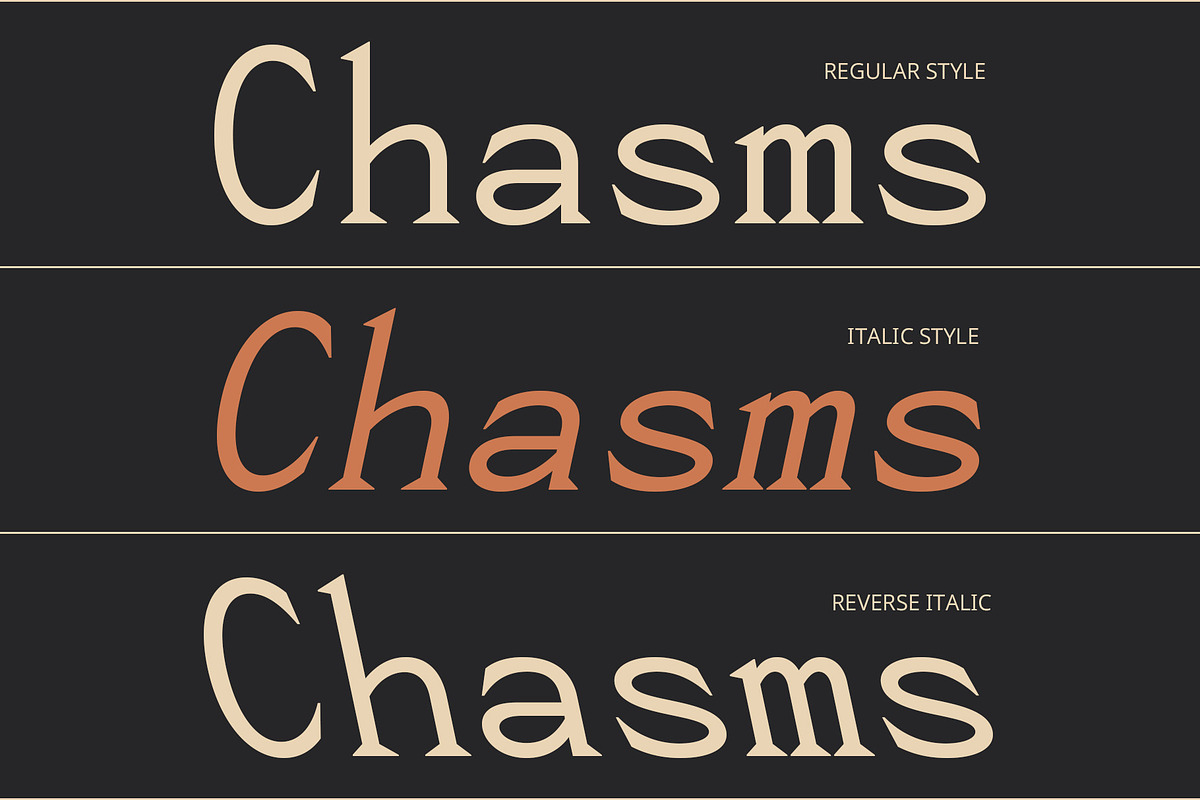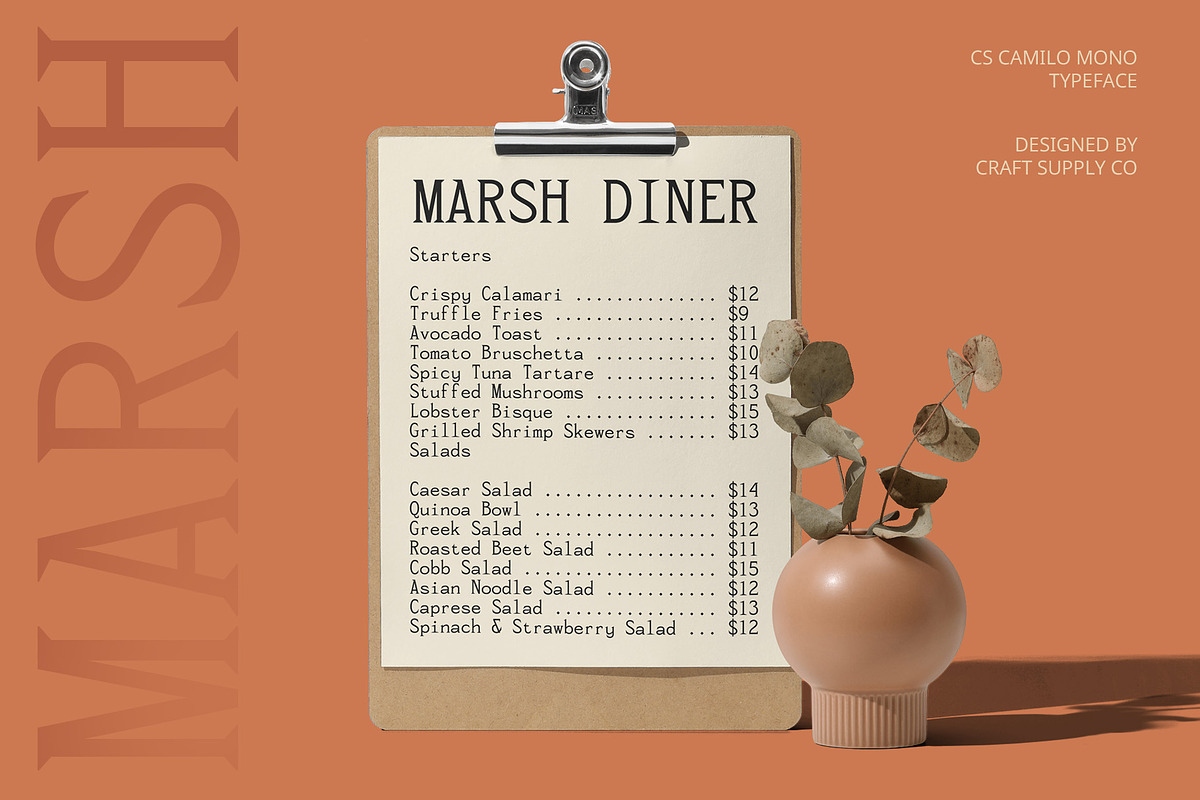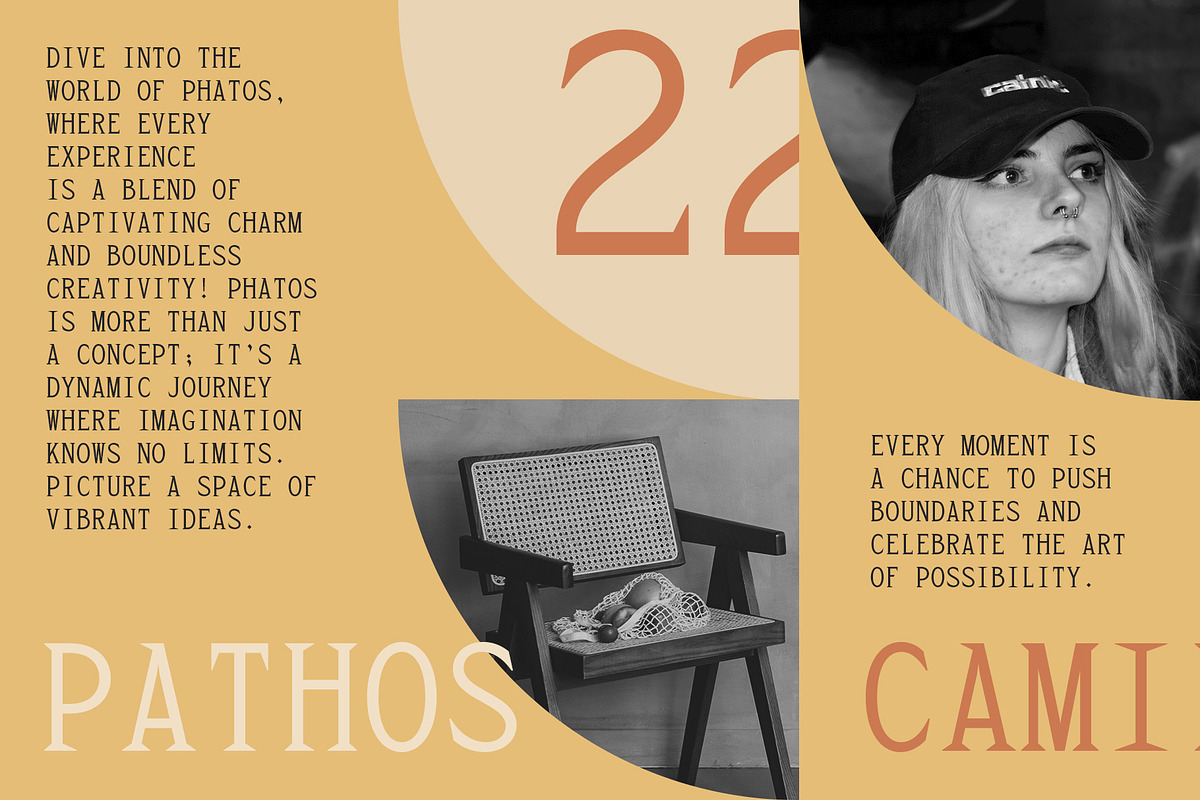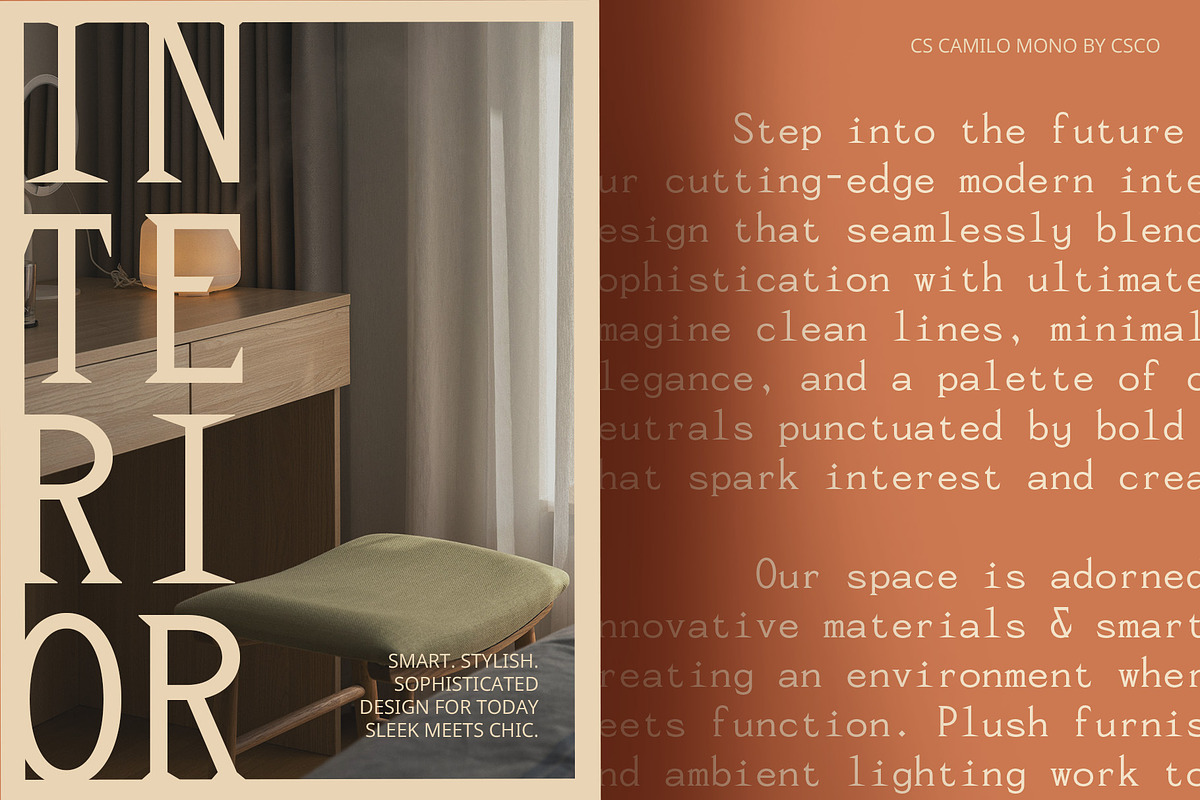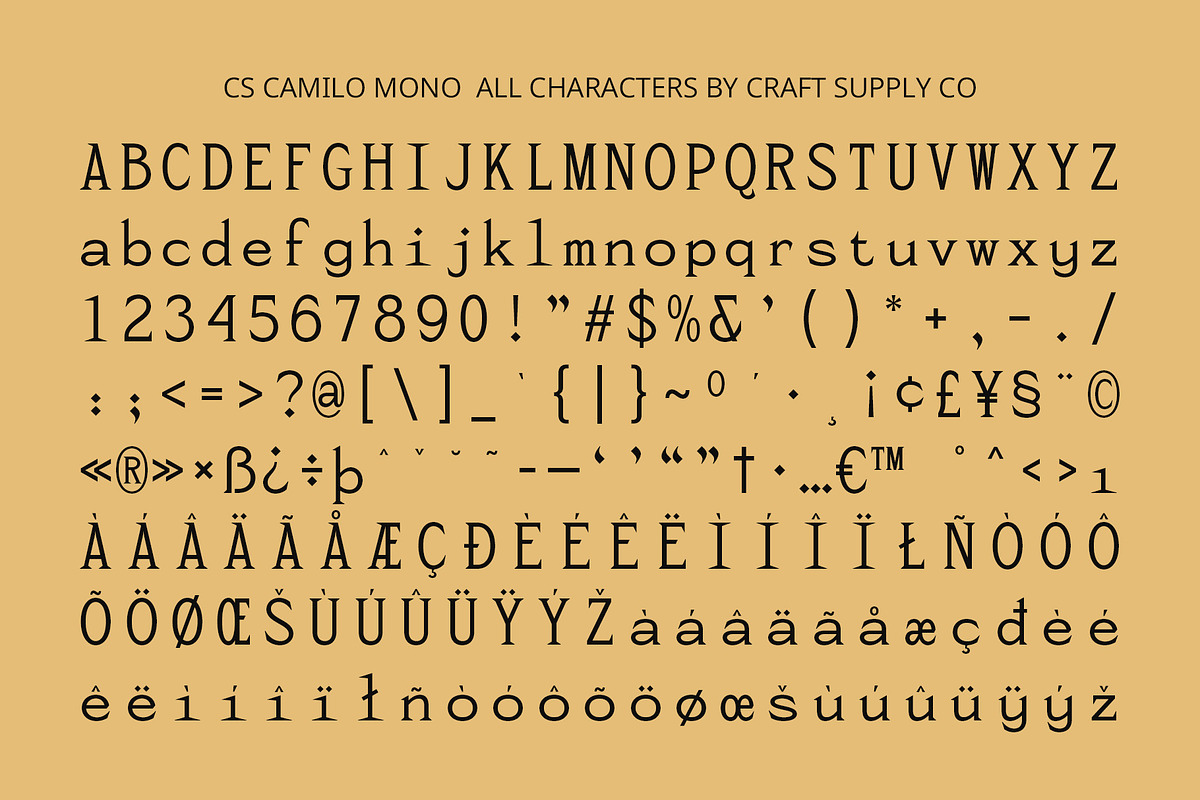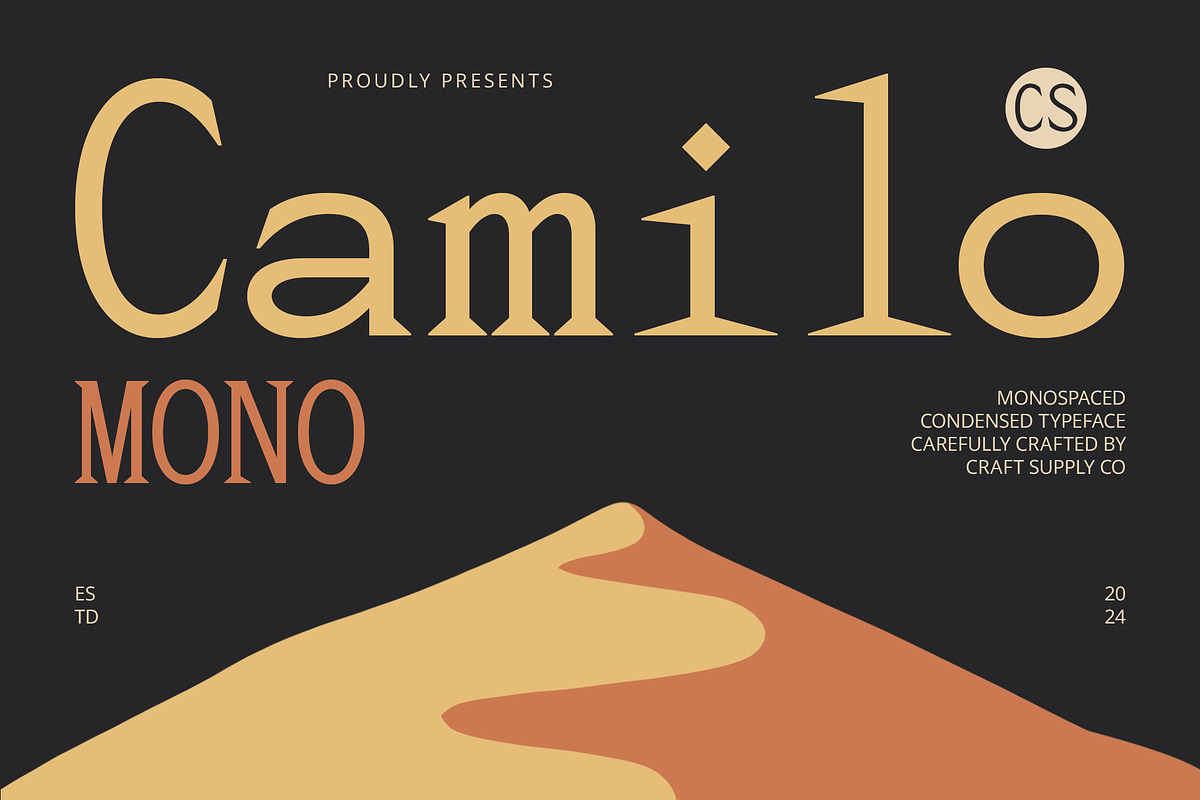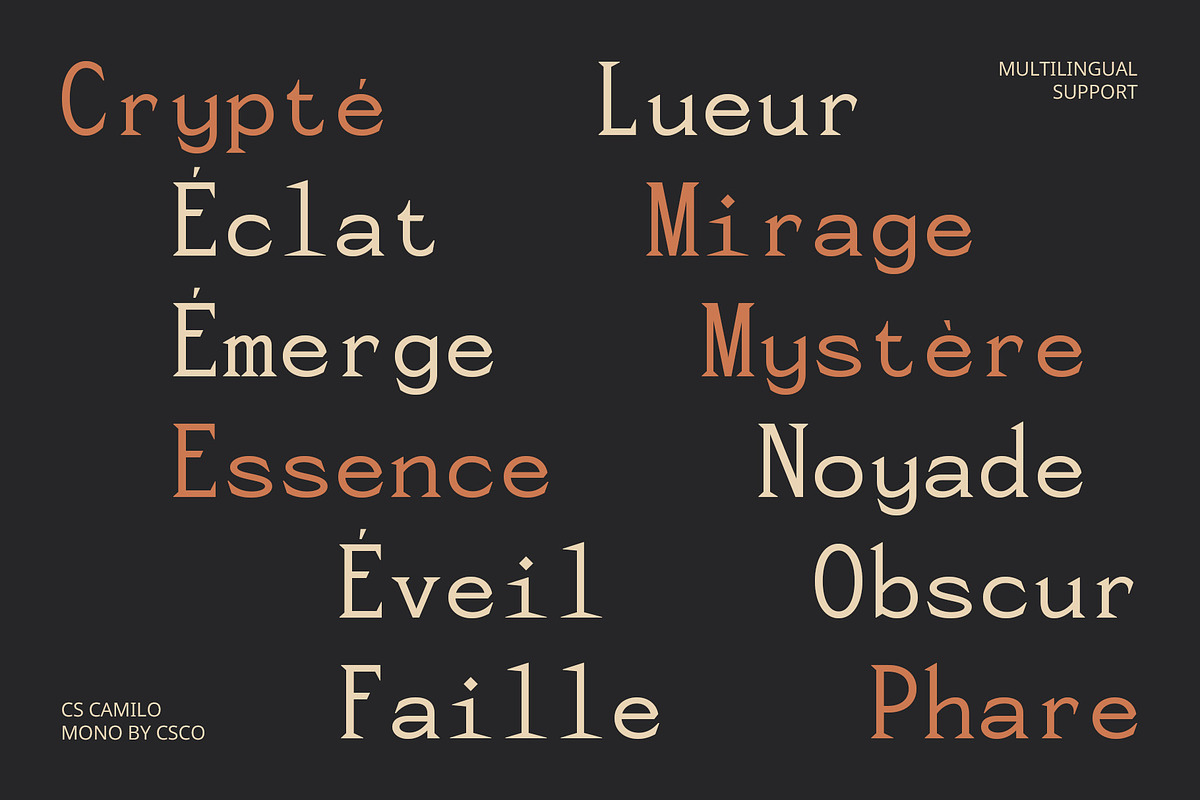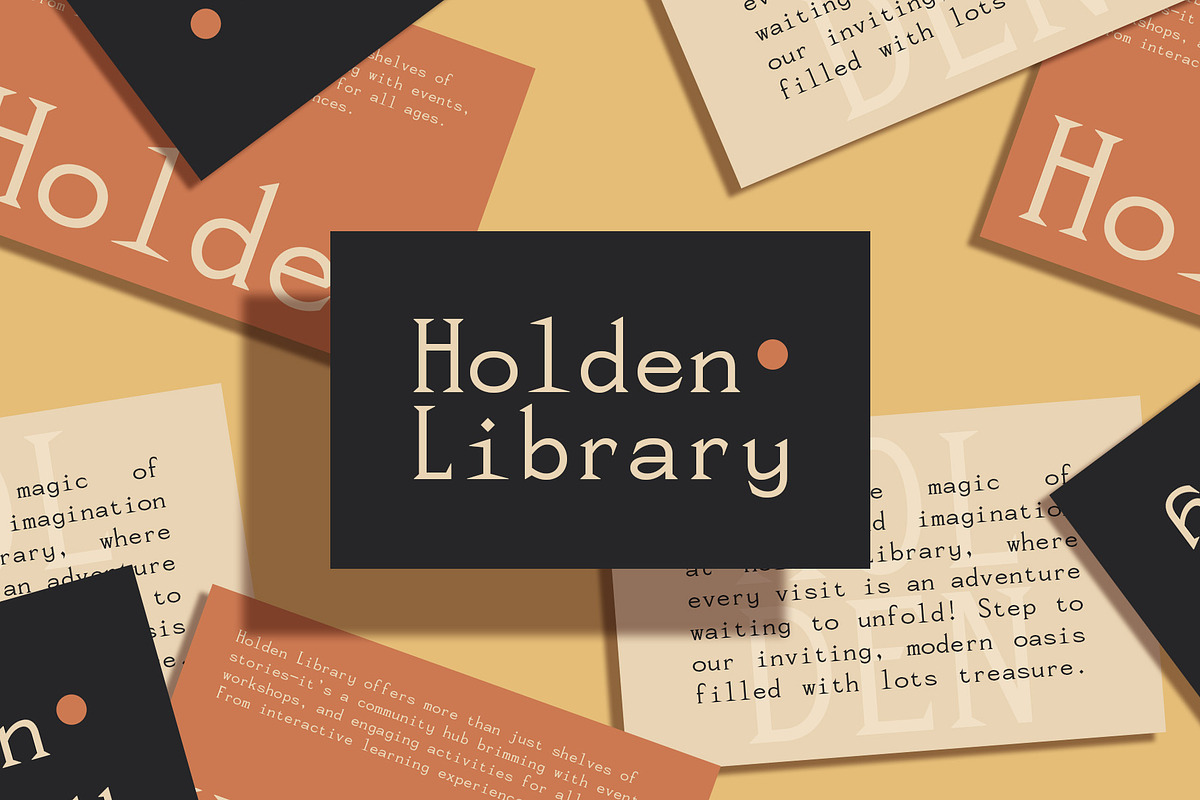
CS Camilo Mono – Monospaced Font
CS Camilo Mono – Monospaced Font: Classic Elegance Meets Modern Precision
Monospaced and Condensed Serif This font is a sophisticated serif font that merges classic design elements with a monospaced and condensed structure. The monospaced feature ensures each character occupies the same width, providing a uniform and technical appearance that enhances readability and organization. The condensed design allows for more text to fit in a narrower space, making it ideal for contexts where space efficiency is crucial.
Detailed Serifs for a Timeless Appeal Featuring intricate serifs, this monospaced font adds a touch of elegance and authority to any design. The detailed serifs contribute to its classic look, creating a sense of tradition and formality that is both visually appealing and functional. This makes it an excellent choice for formal documents, vintage print materials, and any application that benefits from a traditional yet polished aesthetic.
Versatile for Classic and Modern Uses This monospaced font strikes a perfect balance between clarity and nostalgia. Its combination of monospaced precision and classic serif detailing makes it versatile for various uses, including technical documents, branding, and print designs. Whether you’re working on a formal report, a retro-inspired layout, or a design project that calls for a refined yet functional font, this font provides the ideal blend of traditional style and modern efficiency.
- CS Camilo Mono Regular
- CS Camilo Mono Italic
- CS Camilo Mono Reverse Italic